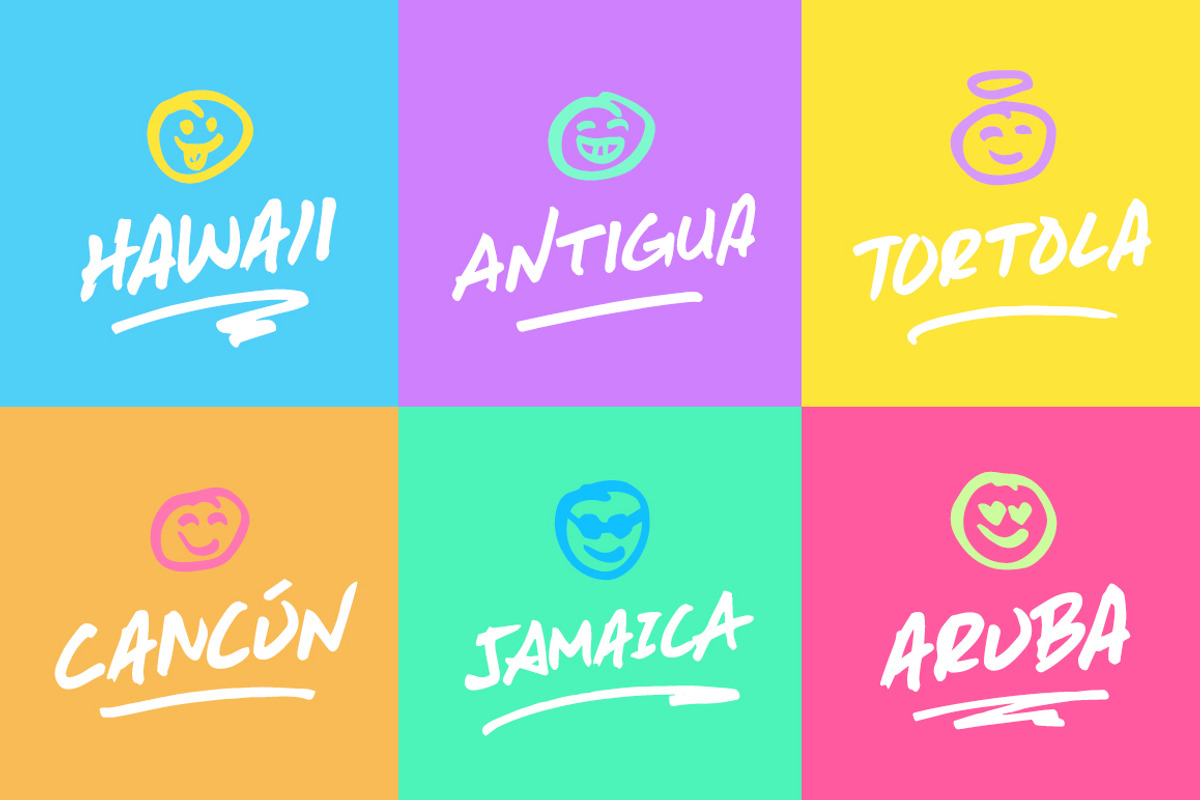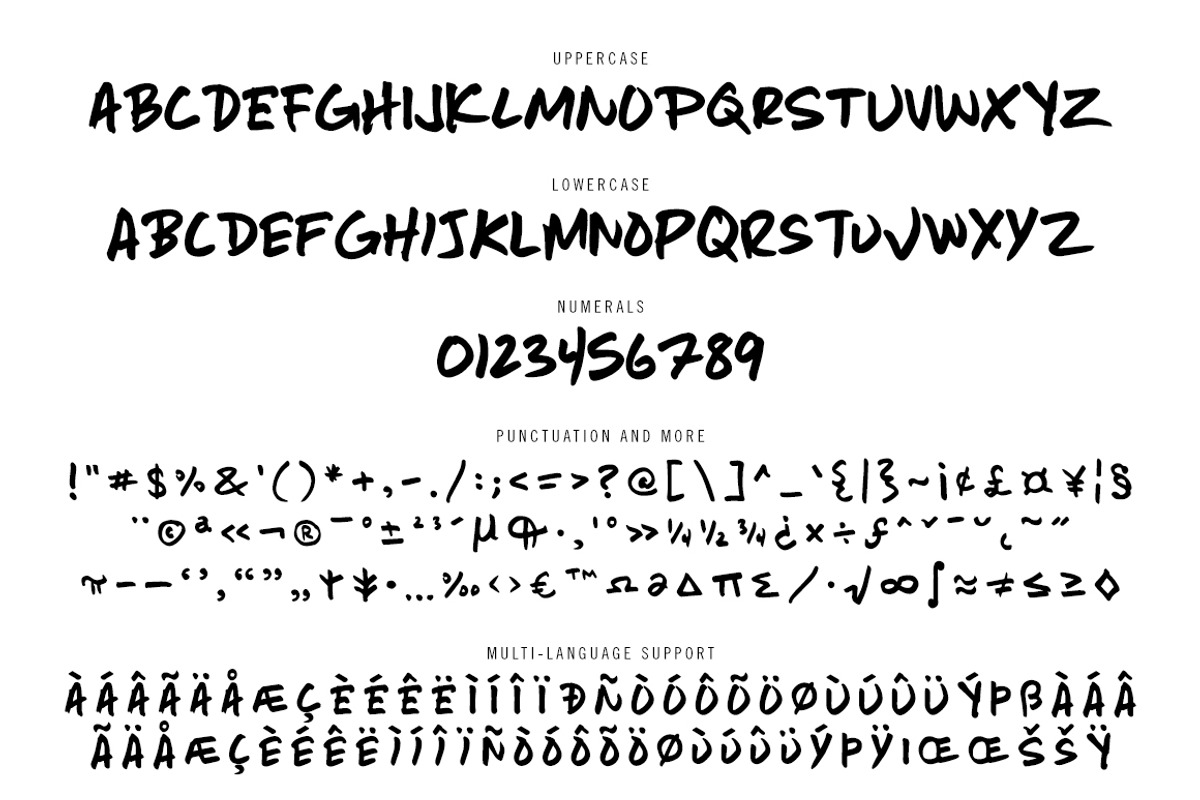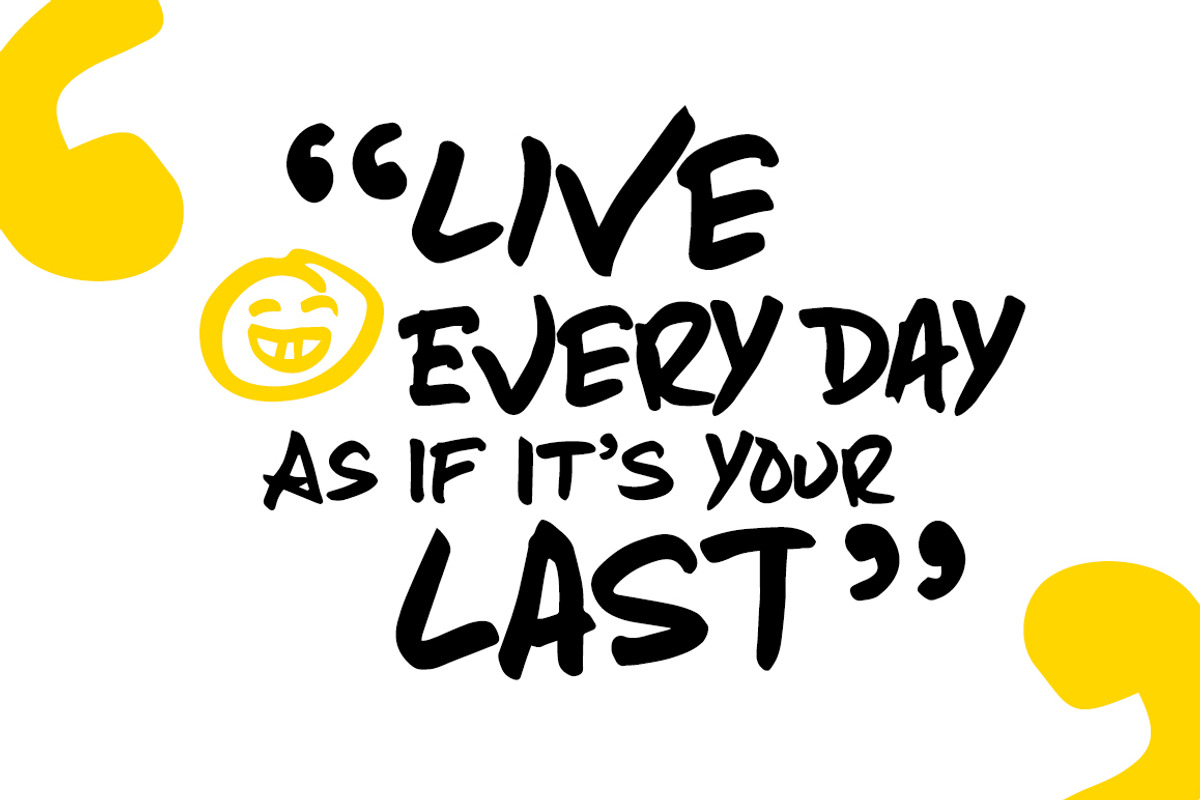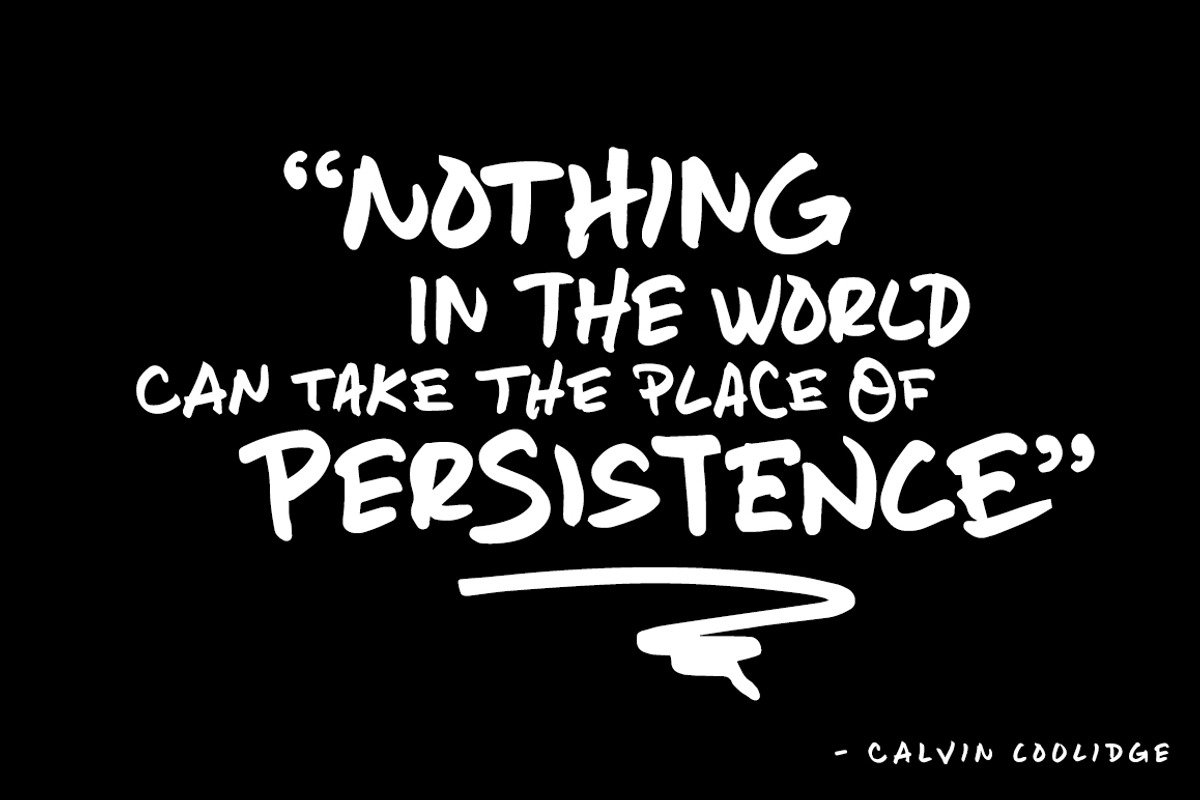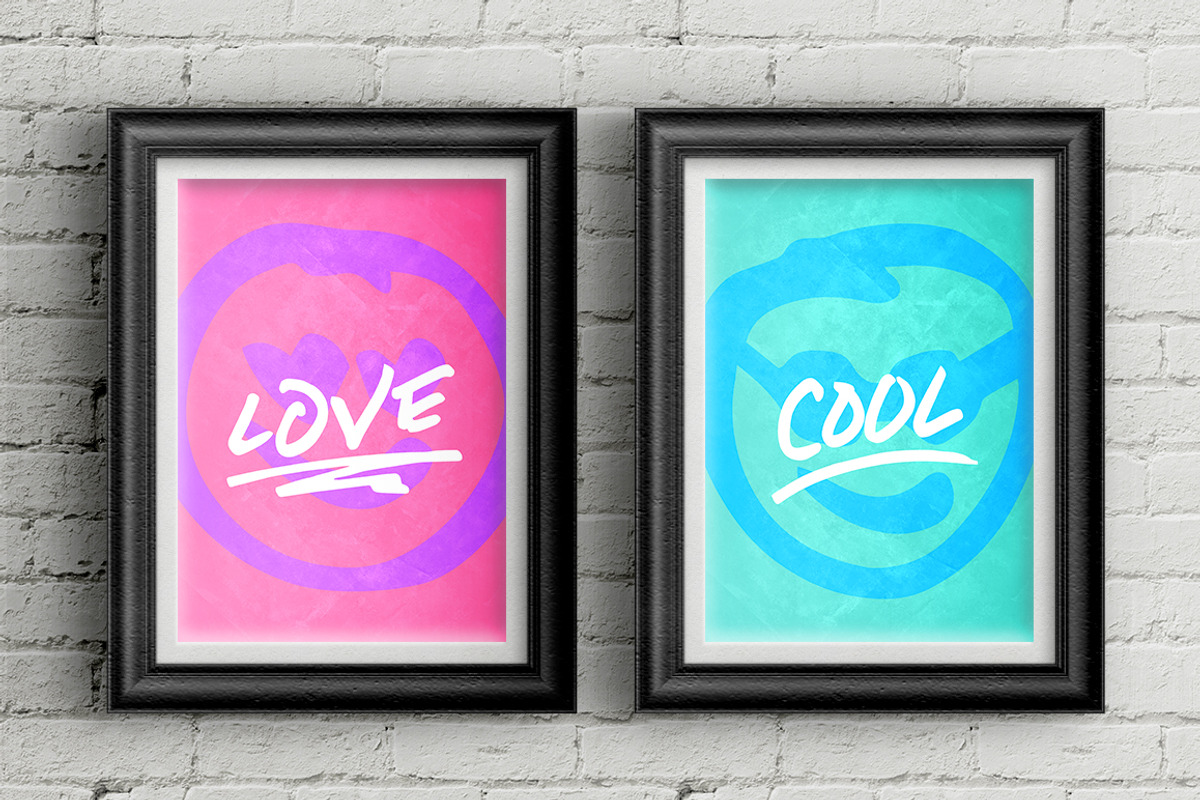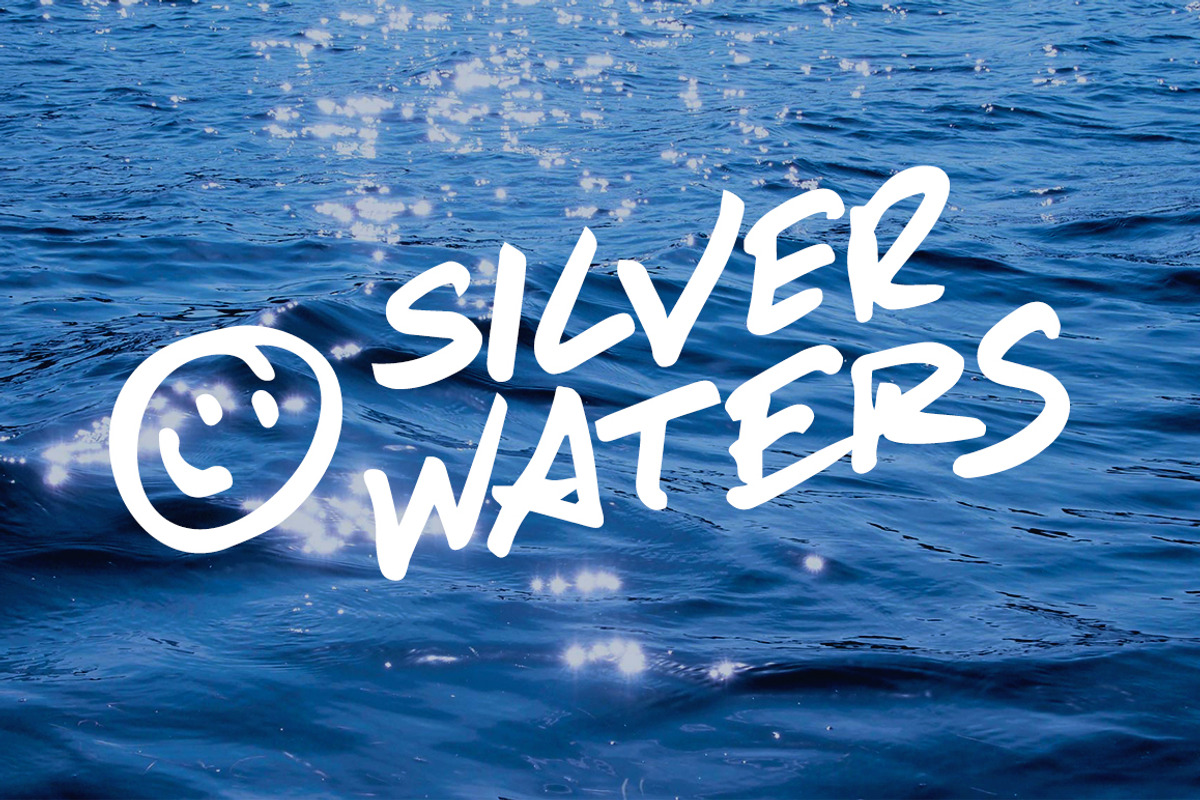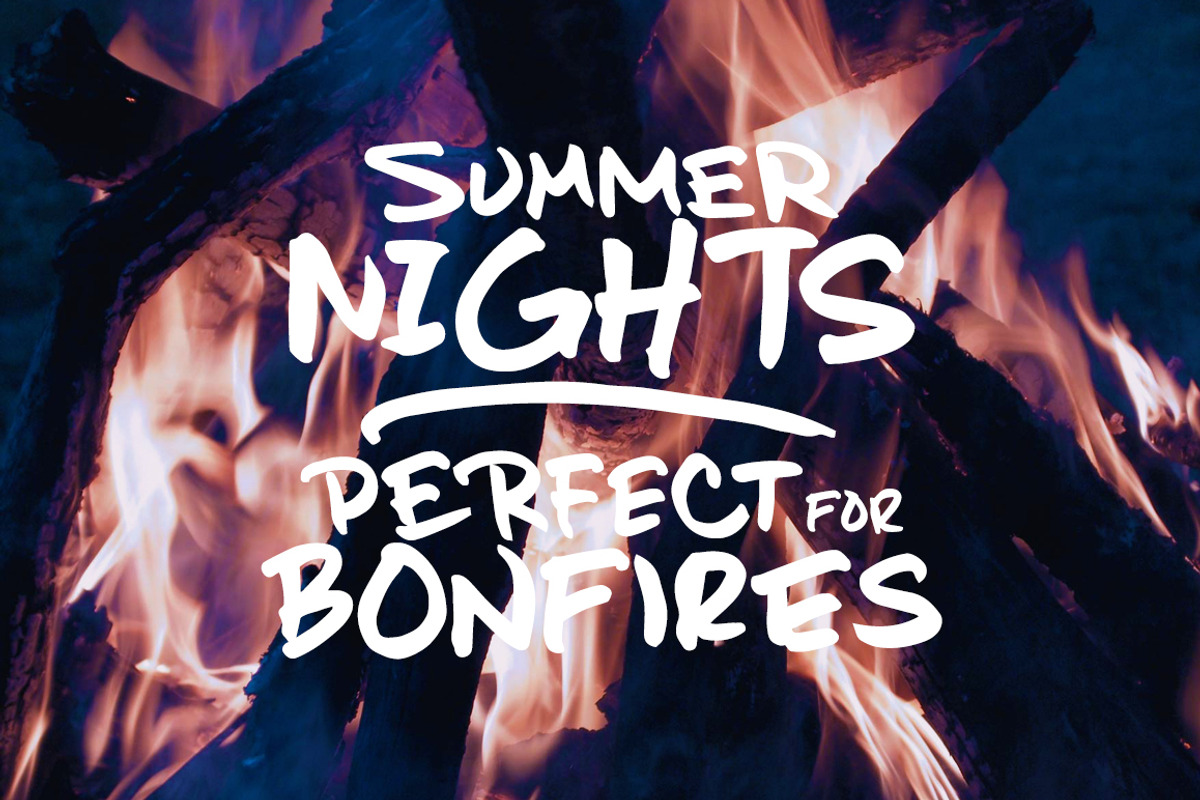
Moonshot Font Family (emojis too!)
Moonshot Font Family (emojis too!) by Scott Howard is a font selected for branding, posters, packaging, typography.
- It includes EMOJIS, allowing you to design with emojis and typographic characters in a stylistically cohesive way.
- Font Includes Moonshot Regular (all caps font) - the uppercase has the main letters, the lowercase has alternate letters, and there are 106
- Again the main letters are in the uppercase, the alternates are in the lowercase, and there are 106 extra alternate letters accessible throu
- Moonshot Decorative - 12 hand-drawn emojis and 25 hand-drawn swashes Large Glyph Set - Moonshot comes with a large set of glyphs, including
Moonshot Font Family (emojis too!) by Scott Howard fits naturally into Branding, posters, packaging, typography.